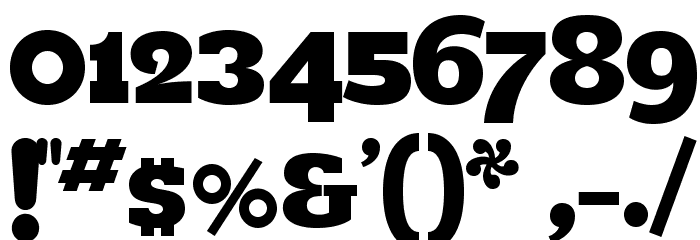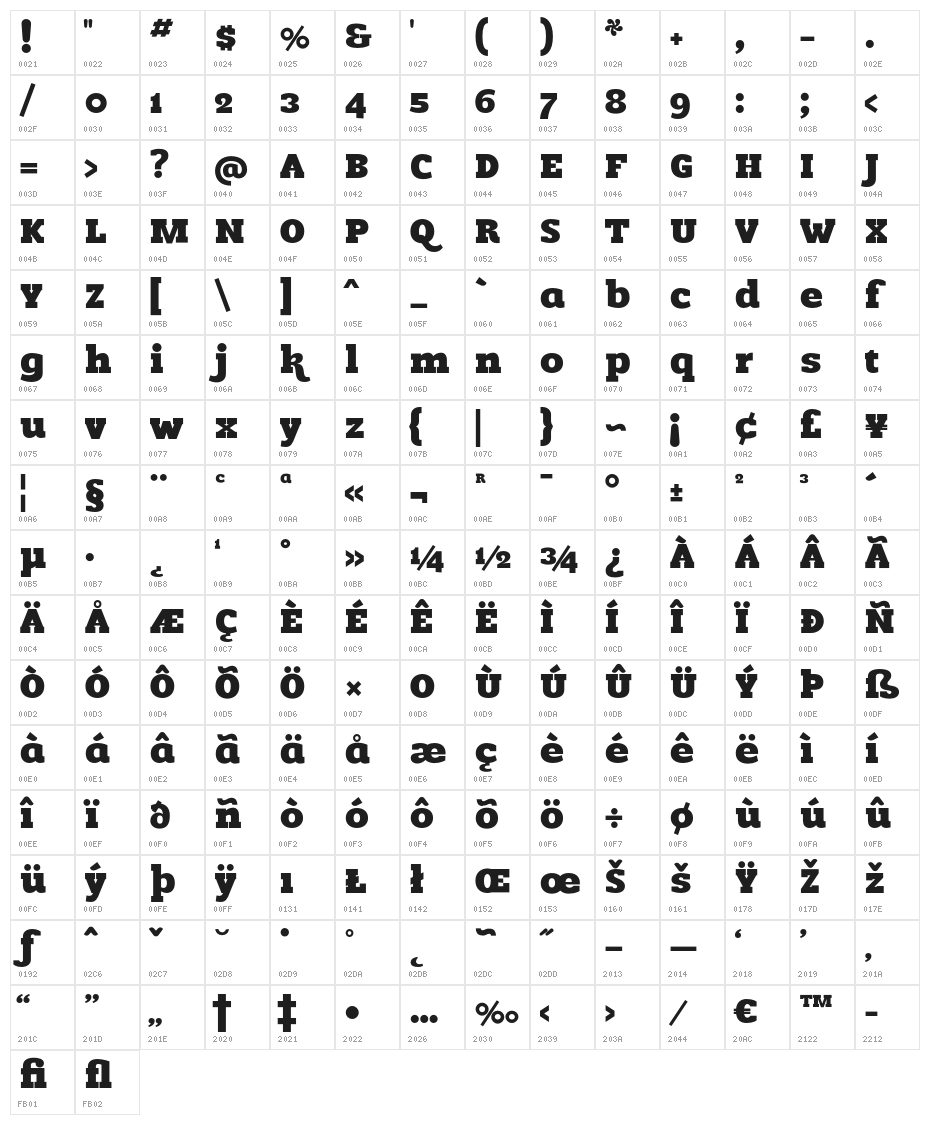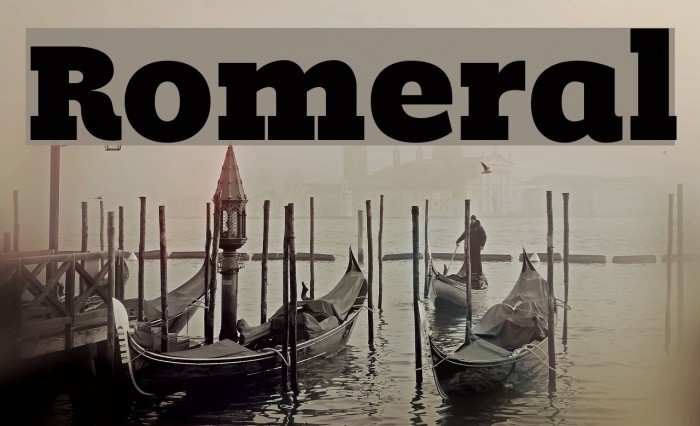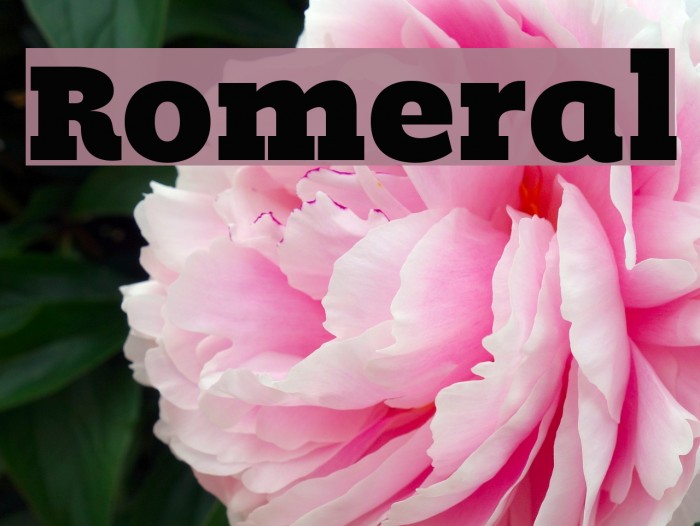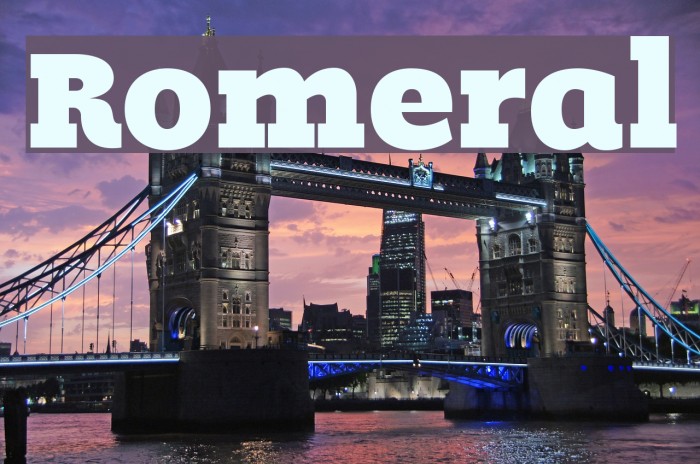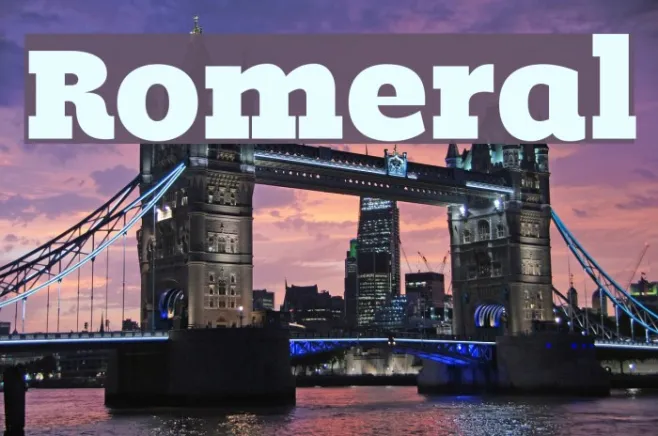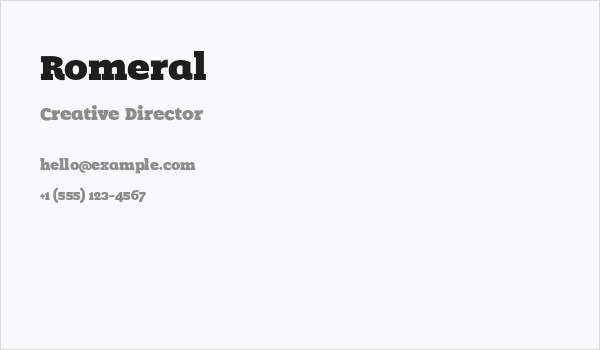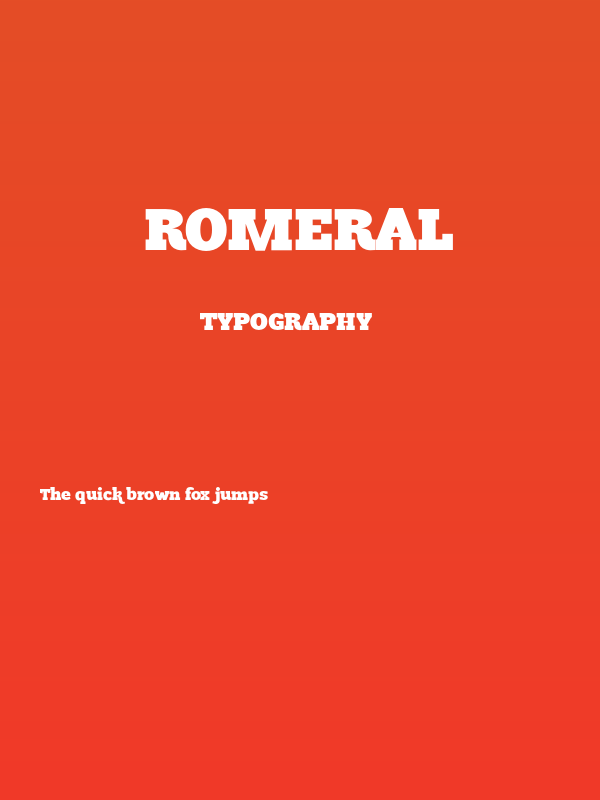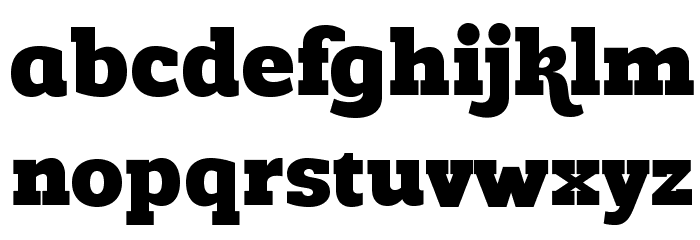
Romeral Font
Romeral Description
This font features a bold and robust slab serif style, characterized by thick, block-like serifs and a strong presence. The uppercase letters are particularly striking, with a commanding and authoritative appearance. The lowercase letters maintain the same boldness, ensuring consistency throughout the typeface. Numbers and special characters are equally bold, making them stand out. The overall design is modern yet retains a classic touch, making it versatile for various applications. Its high contrast in stroke thickness adds to its readability and visual impact.
| Proposed Projects | Ideal for headlines, posters, branding, and any project requiring a strong visual impact. |